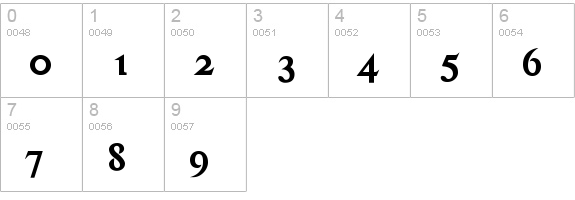
HardTimesBold Font Details
Introducing HardTimesBold, a captivating and versatile font that effortlessly combines strength and sophistication. This font exudes an aura of boldness and determination, making it the perfect choice for projects in need of a commanding presence. With its clean lines and powerful strokes, HardTimesBold demands attention and leaves a lasting impression. Whether used for branding, headlines, or graphic designs, this font ensures your message is conveyed with utmost impact and clarity. What sets HardTimesBold apart is not just its remarkable aesthetics, but also its accessibility. As a testament to our commitment to supporting designers and creatives, this font is freely available to download at FontsMarket.com. Yes, you read that right – absolutely free! We believe that great design should be accessible to all, and HardTimesBold embodies this philosophy. Embrace the versatility and strength of HardTimesBold as you embark on your creative journey. Let this font be a driving force in your designs, igniting inspiration and leaving a lasting impression on your audience. Download HardTimesBold today from FontsMarket.com and experience the power of typography at your fingertips.